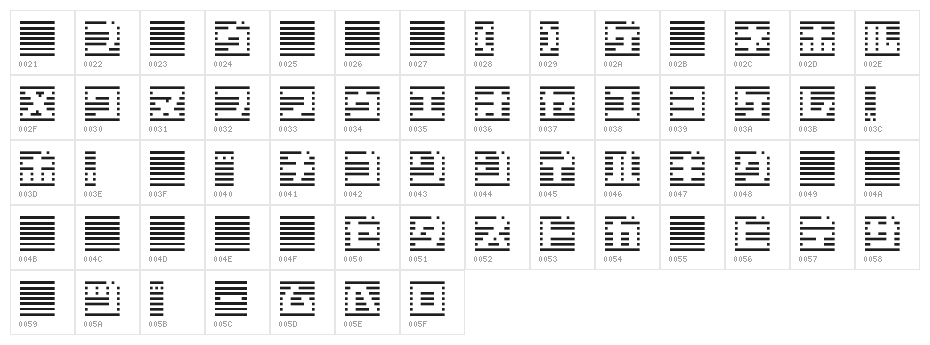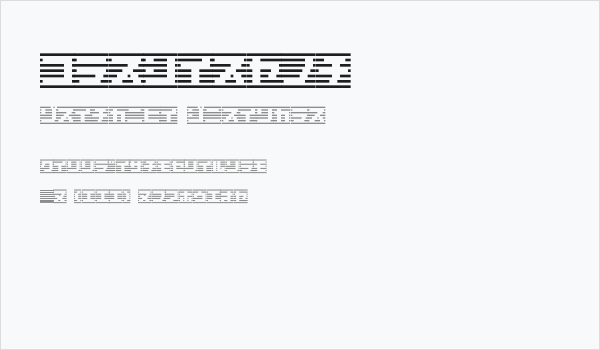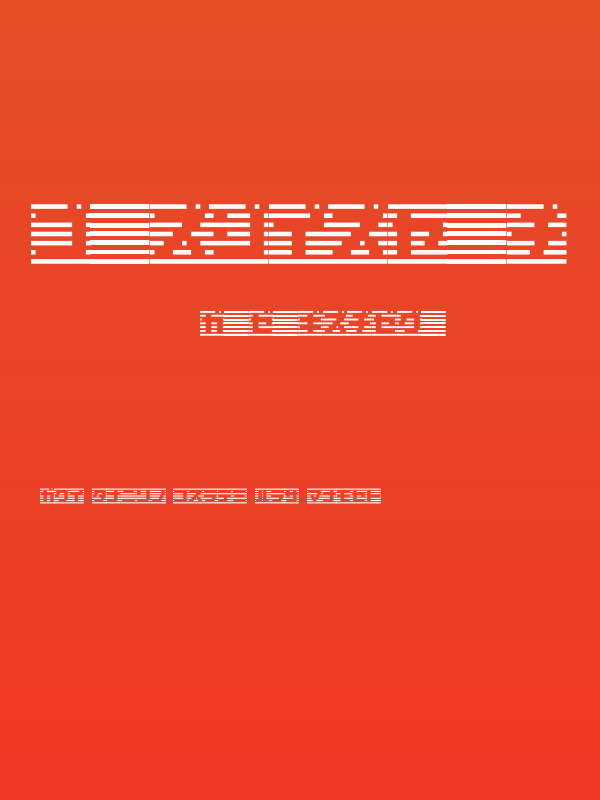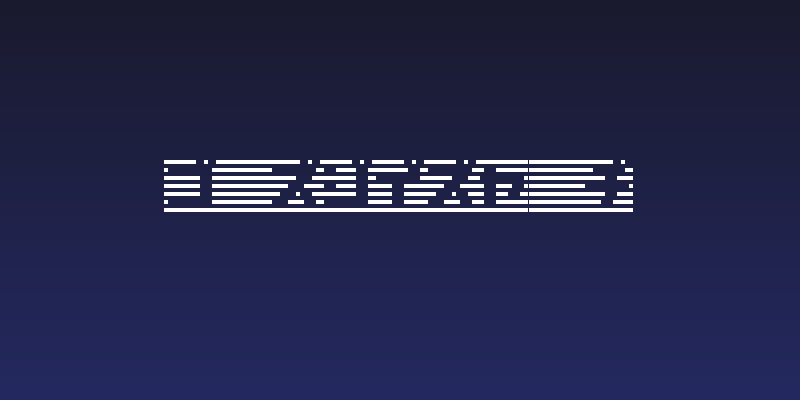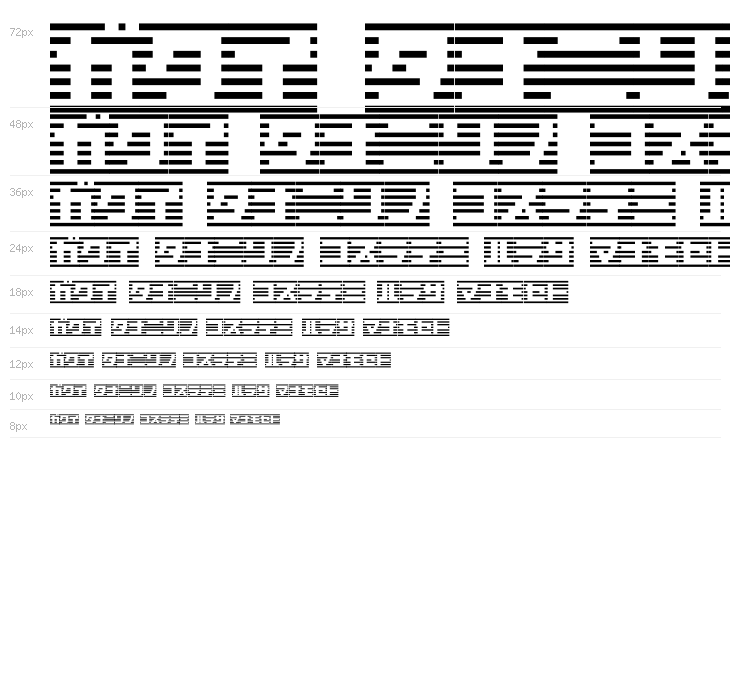
border7ka Font
border7ka Description
This font features a unique design characterized by horizontal lines that create a segmented appearance for each character. The letters and numbers are constructed with a series of parallel lines, giving them a digital, almost barcode-like aesthetic. This style is highly distinctive and modern, making it stand out in any design project. The characters maintain a consistent height and width, contributing to a uniform and structured look. The font's linear design is both futuristic and minimalistic, ideal for projects that require a contemporary and edgy feel.
| Proposed Projects | Ideal for tech-themed designs, futuristic branding, digital art projects, and innovative advertising campaigns. |